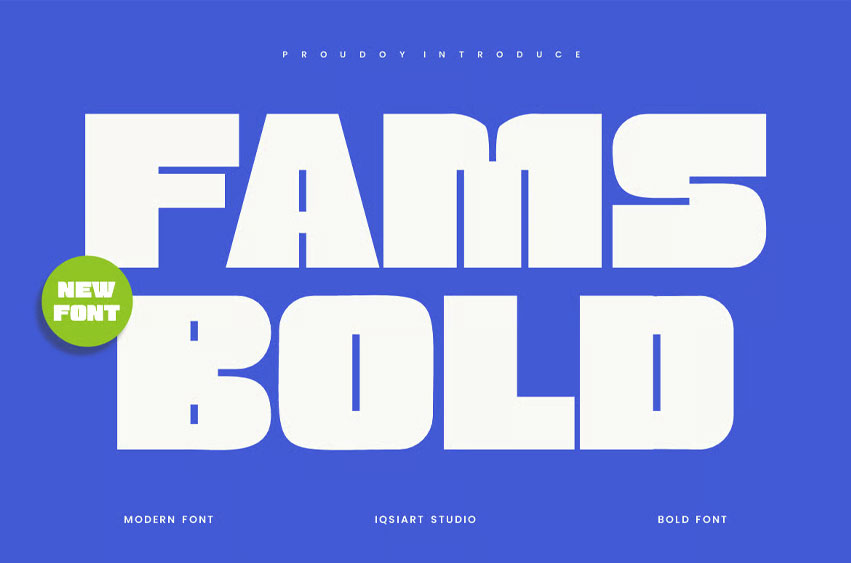
Fams Bold Font
Fams Bold Font is the best and authentic display font. This font can be used for your various needs. We provide various themes and font styles.